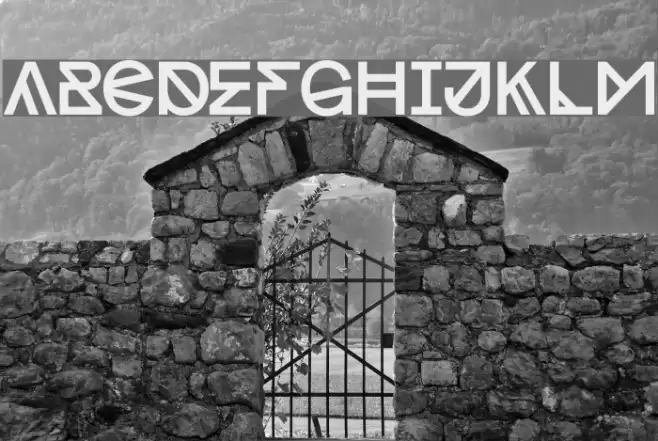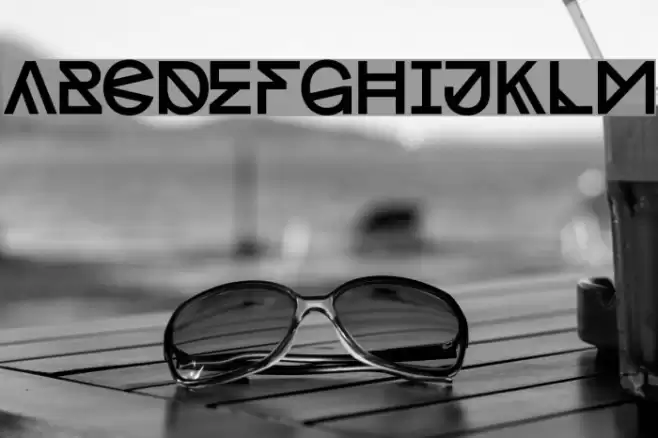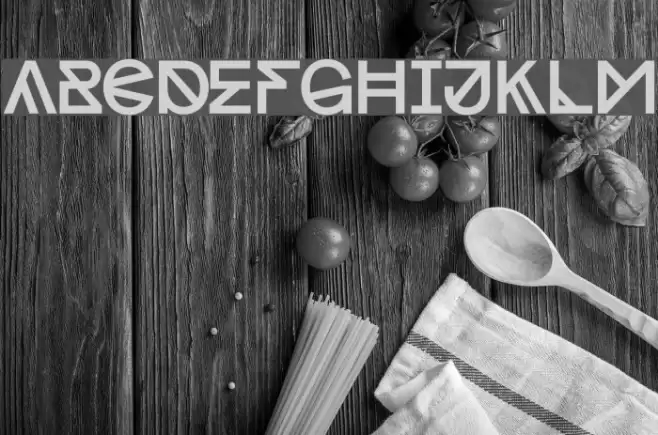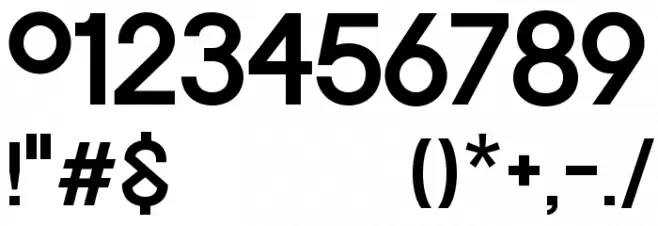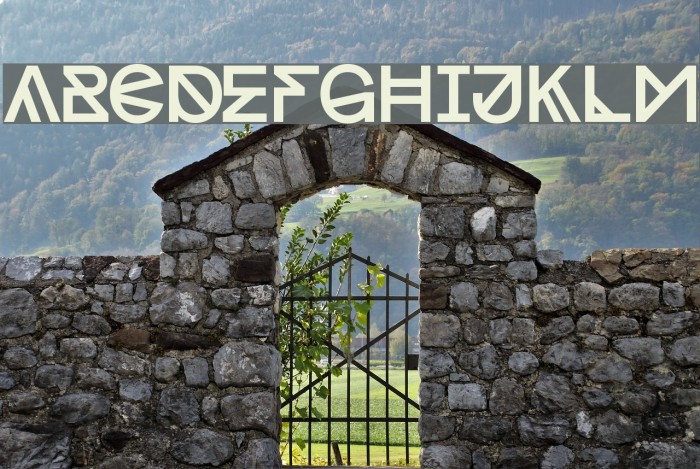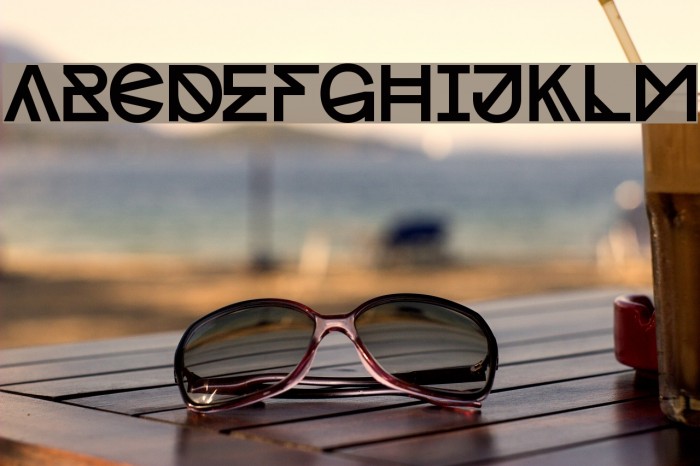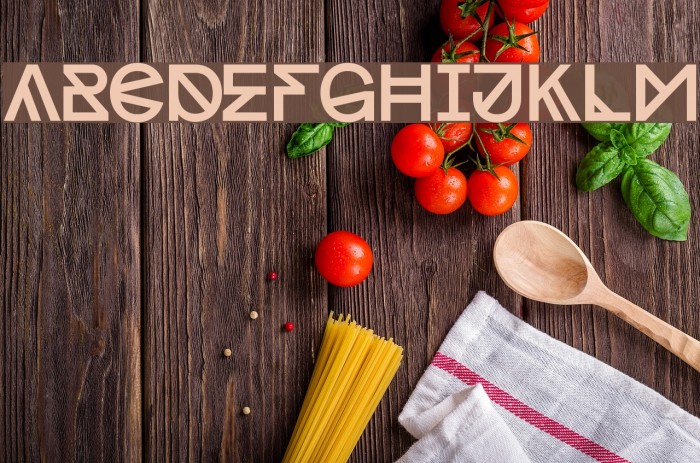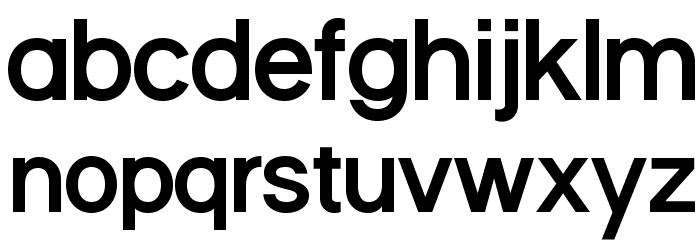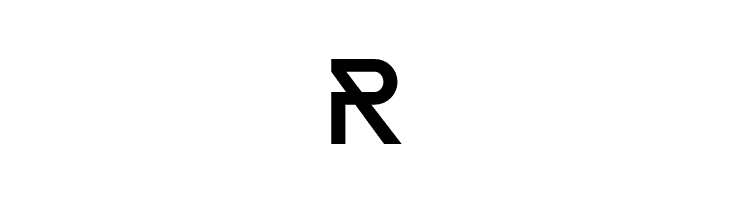
Progress-Regular Font
Progress-Regular Description
This font features a unique blend of geometric and modern elements, characterized by its bold and angular letterforms. The uppercase letters exhibit a distinct style with sharp angles and a futuristic appearance, while the lowercase letters maintain a more traditional, rounded form. The numerals are consistent with the bold style, offering clear readability. Special characters are designed to complement the overall aesthetic, adding to the font's versatility. The font's design is both striking and functional, making it suitable for a variety of creative applications.
A bold, geometric font with a modern and futuristic style from Uncategorized fonts.
- Proposed Projects: Ideal for branding, headlines, posters, and digital media projects that require a modern and eye-catching typeface.